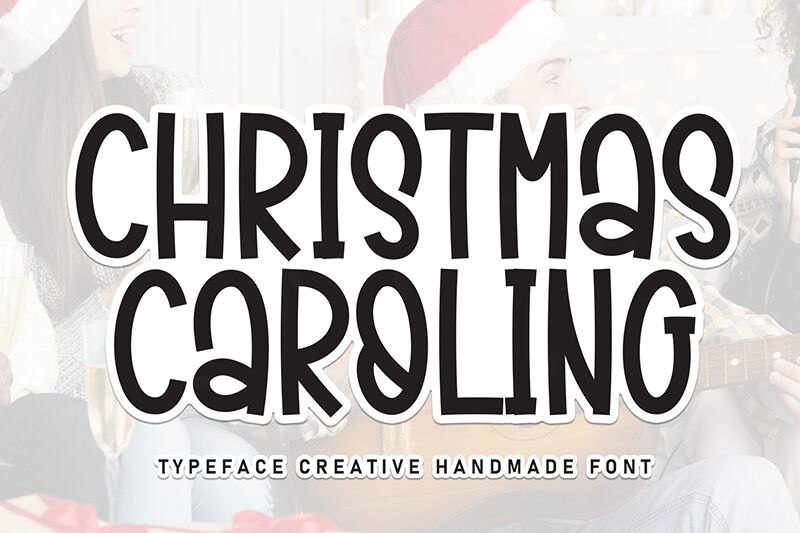
Christmas Caroling
Christmas Caroling font is a free handwritten font designed by Scratchones. Its letters have a condensed width, decorated lines, and whimsical endings. Inspired by retro scripts, the characters create an artistic flair that is ideal for decorative holiday-themed design projects.
Use this typeface for Christmas posters, greeting cards, social media posts, invitations, logotypes, product packaging or labels. Further uses include book covers (especially children’s books), magazine titles and headers in printed or digital mediums.